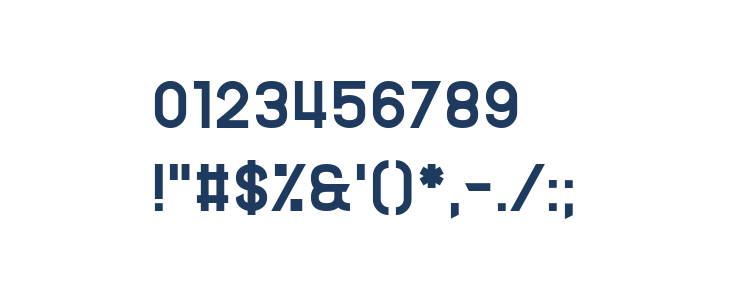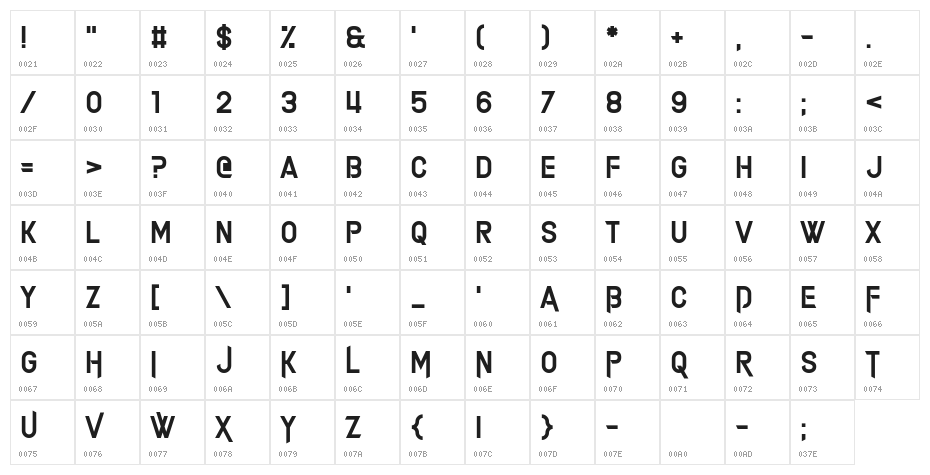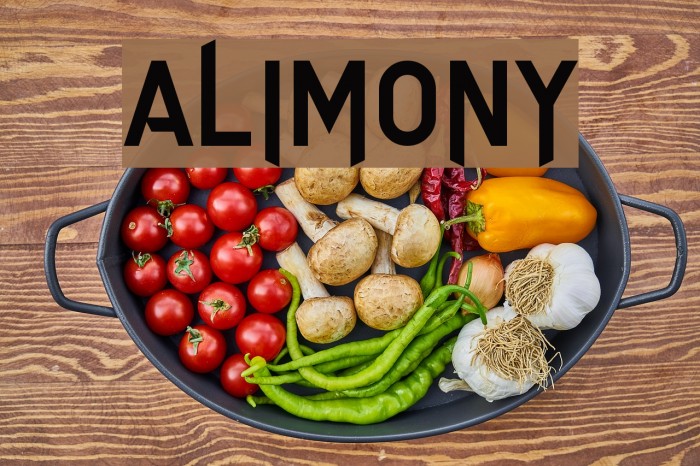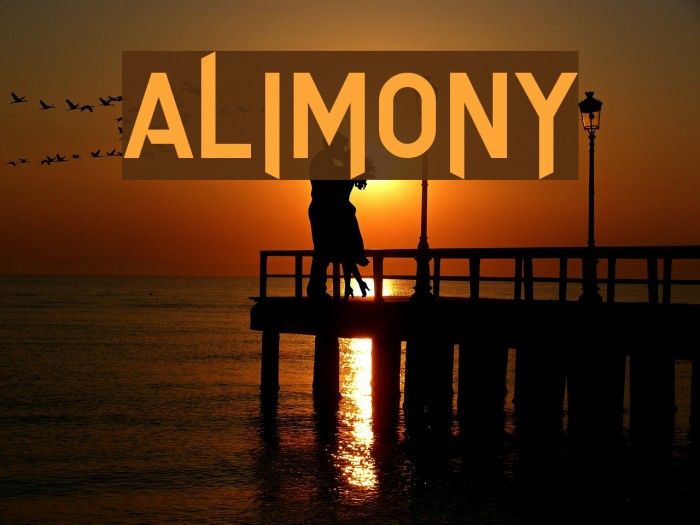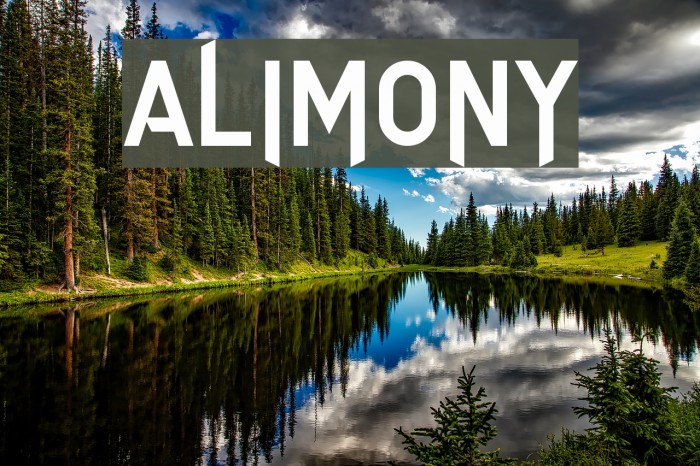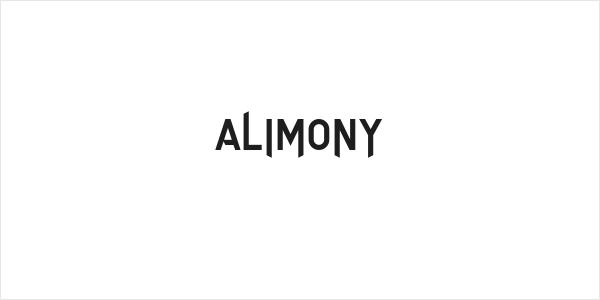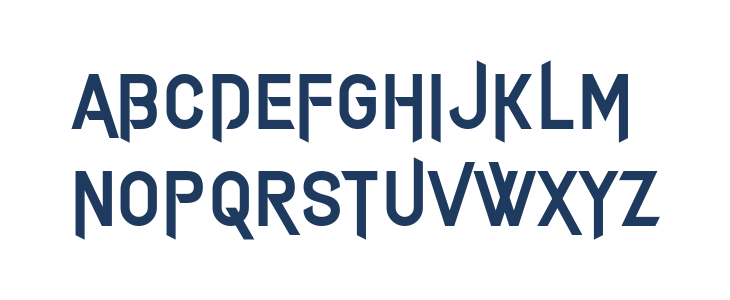
Alimony Font
Alimony Description
This font features a bold and assertive design with strong geometric shapes and clean lines. The uppercase letters are uniform in height, creating a cohesive and structured appearance. The characters exhibit a modern and industrial aesthetic, with sharp angles and a consistent stroke width that conveys a sense of strength and stability. The numerals are equally robust, maintaining the same boldness and clarity as the alphabetic characters. Special characters are designed with the same attention to detail, ensuring they integrate seamlessly with the rest of the font. This typeface is ideal for projects that require a strong visual impact and a contemporary feel.
| Use Case | Headlines, Logos, Signage |
| Proposed Projects | Ideal for branding, posters, headlines, and signage where a strong visual impact is desired. |